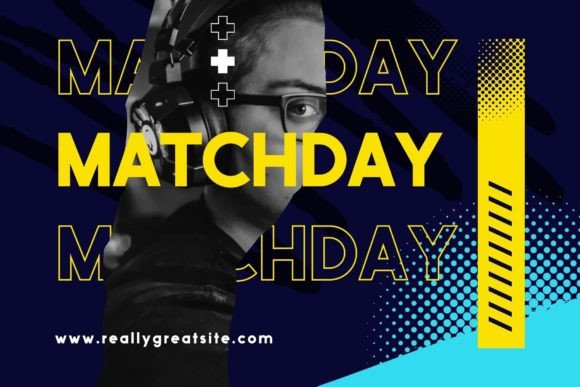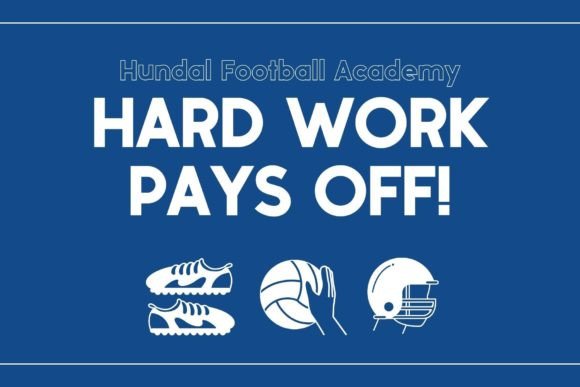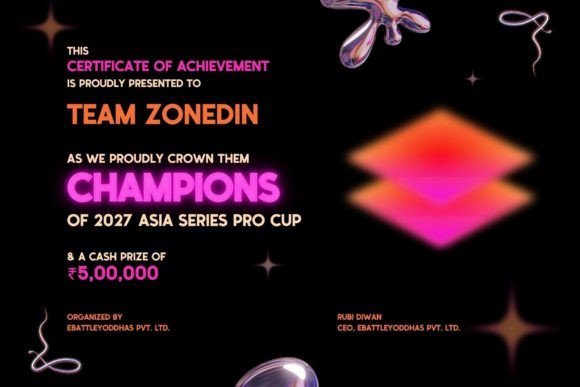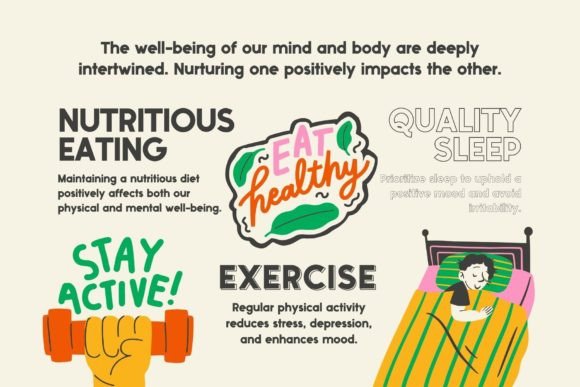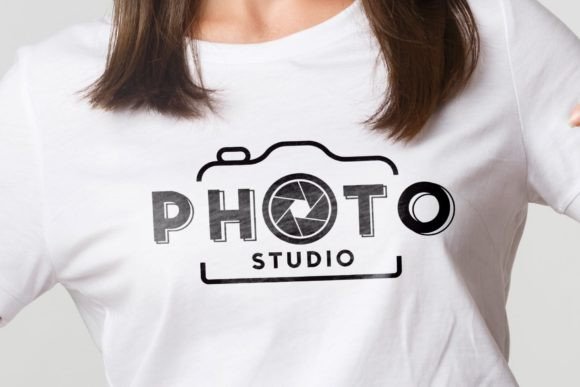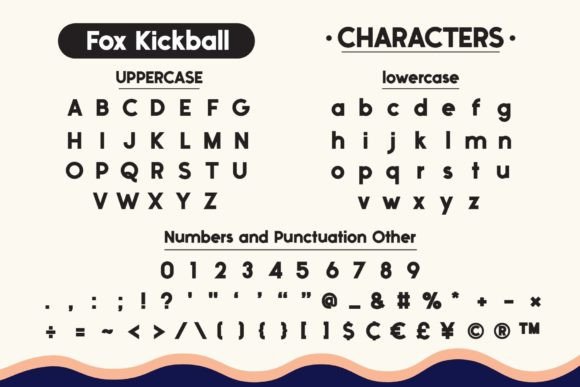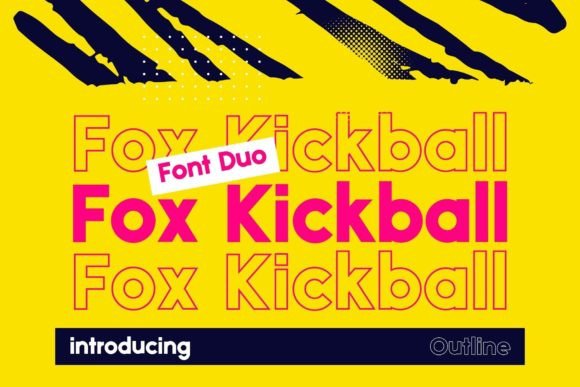
Introducing Fox Kickball Font: A Modern Sans-Serif Marvel
Are you on the hunt for a font that can elevate your designs to new heights? Look no further than Fox Kickball and Fox Kickball Outline, two cool and modern sans-serif fonts that are perfect for a wide range of creative projects. In this article, we’ll dive into the features and benefits of these fantastic fonts, and explore how they can become an incredible asset to your font library.
What is Fox Kickball Font?
Fox Kickball and Fox Kickball Outline are two sans-serif fonts that boast a fresh and modern aesthetic. Their clean lines, simple shapes, and highly legible design make them perfect for use in a variety of contexts, from publications and menus to logos, business cards, and even printed apparel like t-shirts. The versatility of these fonts is one of their standout features, allowing you to use them to create a wide range of designs that are both visually appealing and effective.
Key Features of Fox Kickball Font
• Modern Sans-Serif Design: Fox Kickball and Fox Kickball Outline feature a sleek and contemporary sans-serif design that is sure to grab attention.
• High Legibility: The fonts’ clean lines and simple shapes ensure that your text remains easy to read, even at smaller sizes.
• Versatility: Use Fox Kickball and Fox Kickball Outline for everything from publications and menus to logos, business cards, and printed apparel.
• Incredible Asset: With their modern design and versatility, these fonts have the potential to become a go-to choice in your font library.
Why Choose Fox Kickball Font?
So, why should you choose Fox Kickball and Fox Kickball Outline for your next design project? For starters, their modern sans-serif design ensures that your work will look fresh and contemporary, setting you apart from the competition. Additionally, the high legibility of these fonts makes them perfect for use in body text, while their versatility means you can use them for everything from headings to captions.
Fox Kickball and Fox Kickball Outline are a perfect fit for designers and crafters who are looking to elevate their work. Whether you’re creating designs for clients or working on personal projects, these fonts offer a wide range of creative possibilities. Use them to:
• Create stunning publications, such as brochures, flyers, and posters.
• Design eye-catching menus and signage for restaurants, cafes, and bars.
• Develop professional logos and branding materials for businesses.
• Produce beautiful business cards and stationery.
• Print custom apparel, such as t-shirts, hats, and bags.
Tips for Using Fox Kickball Font
To get the most out of Fox Kickball and Fox Kickball Outline, here are a few tips to keep in mind:
• Experiment with Font Sizes: Fox Kickball and Fox Kickball Outline look great at a wide range of font sizes, so don’t be afraid to experiment and find the perfect size for your design.
• Pair with Other Fonts: Try pairing Fox Kickball and Fox Kickball Outline with other fonts to create a unique and visually appealing design.
• Use for Headings and Body Text: The high legibility of these fonts makes them perfect for use in both headings and body text.
In conclusion, Fox Kickball and Fox Kickball Outline are two modern sans-serif fonts that offer a wide range of creative possibilities for designers and crafters. With their clean lines, simple shapes, and highly legible design, these fonts are perfect for use in a variety of contexts. Whether you’re creating publications, menus, logos, business cards, or printed apparel, Fox Kickball and Fox Kickball Outline are sure to become an incredible asset to your font library.